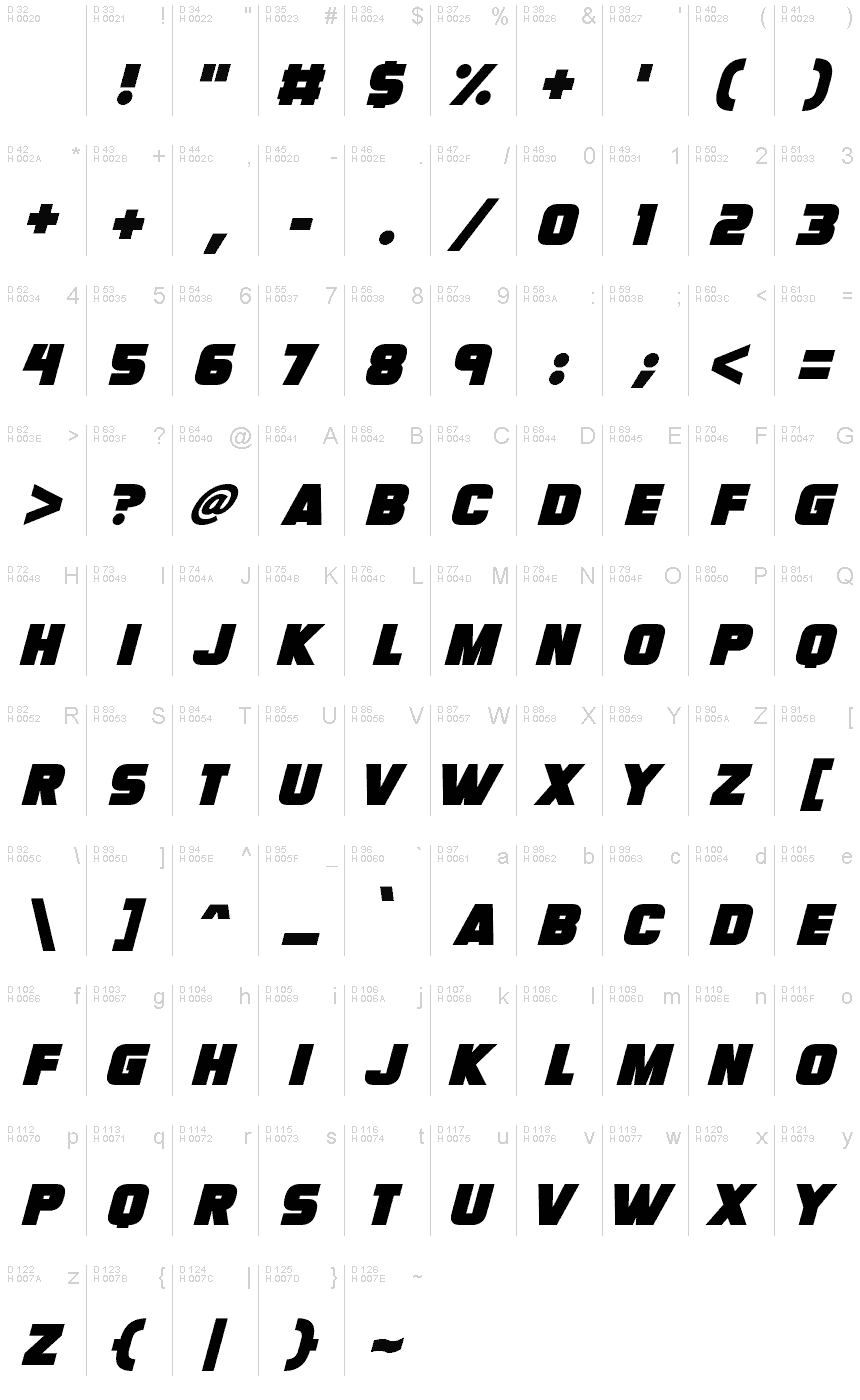
Megabomb Italic
Megabomb Italic, a bold and striking sans-serif font, emanates a powerful, eye-catching presence. Designed by Darrell Flood, this font family exudes a dynamic, contemporary aesthetic that commands attention.
The bold, italic styling lends an unapologetic, assertive tone, making it an excellent choice for headlines, branding, and various display applications. Megabomb Italic's clean, geometric forms and seamless transitions between thick and thin strokes create a bold, impactful visual statement.
This font's versatility allows it to shine in diverse design contexts, from modern editorial layouts to attention-grabbing marketing materials.